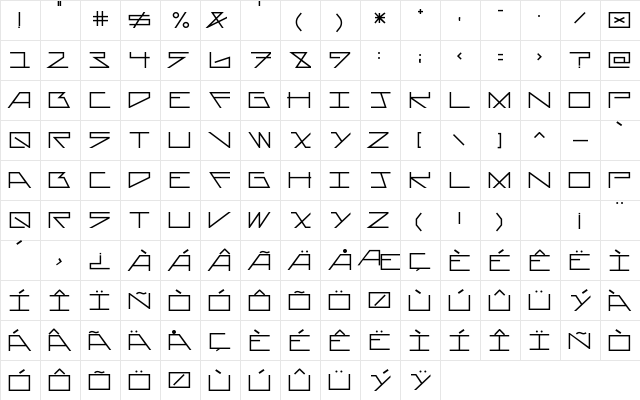
AsteriskPlain Regular
Design Context for AsteriskPlain Typeface
AsteriskPlain is a composed and adaptable typeface that performs quietly and consistently across a wide range of design contexts.
Pro Tip: Use AsteriskPlain in both headline and body roles to test its range before committing to a single application.